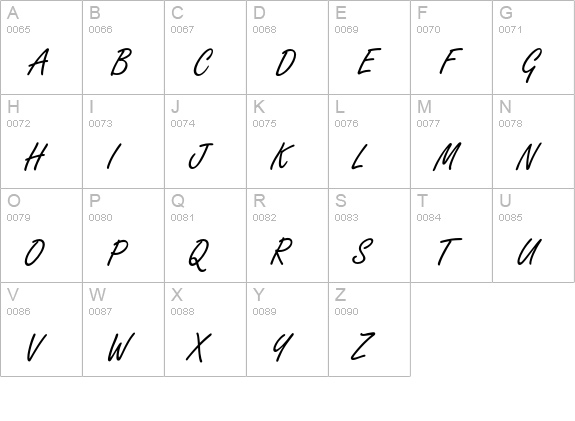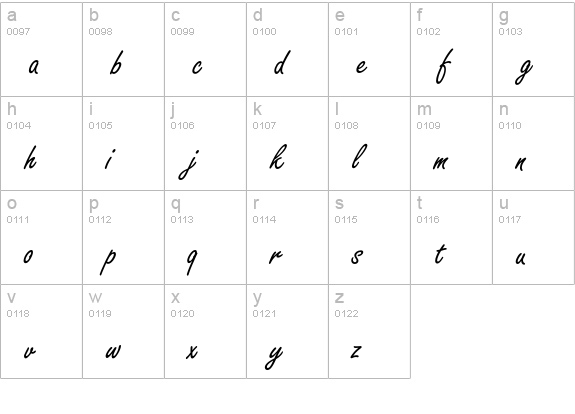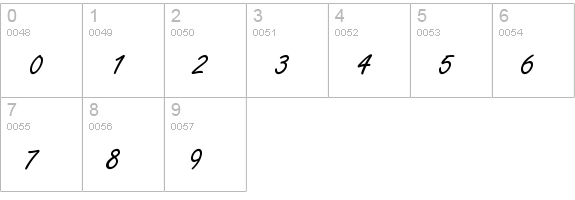
Freestyle Script D Font Details
Freestyle Script D font is a charming and whimsical typeface that exudes a sense of casual elegance. Its flowing cursive strokes and playful curves give any design a touch of personality and flair. Perfect for adding a touch of friendliness to invitations, greeting cards, or social media graphics, Freestyle Script D font is versatile and easy to read. What sets Freestyle Script D font apart is that it is freely available to download at FontsMarket.com. This means that you can easily access this delightful font for all your creative projects without any cost. Whether you're designing a wedding invitation, creating a logo, or crafting a social media post, Freestyle Script D font is a great choice to add a touch of warmth and charm. Download it today and let your creativity run free with this beautiful typeface.